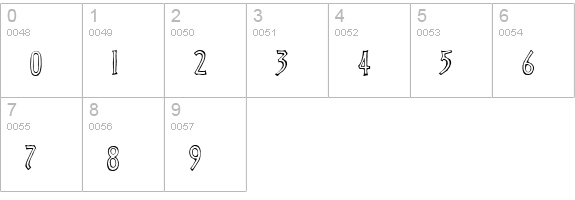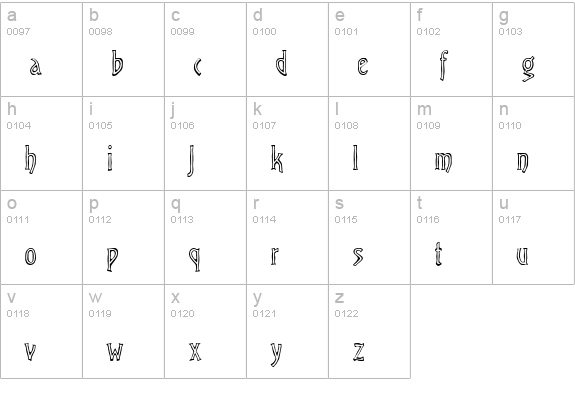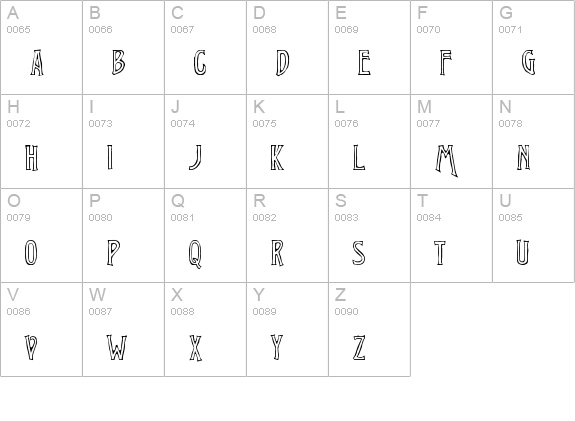
Virile Open is a striking and robust font that exudes confidence and power. With its bold and muscular letterforms, this font is perfect for making a strong statement in your designs. What sets Virile Open apart is not only its strong presence, but also its versatility. It can be used across a wide range of design projects, from logos and headlines to posters and packaging. No matter the application, Virile Open commands attention and leaves a lasting impression. But what makes Virile Open even more appealing is the fact that it is free. Yes, you read that right. This incredible font is freely available to download at FontsMarket.com. Now you can add this impressive typeface to your collection without any cost. Downloading Virile Open is a breeze. Simply visit FontsMarket.com and navigate to the font's page. From there, click on the download button and in just a few seconds, you'll have this powerful font ready to use in your projects. So why wait? Take advantage of this amazing opportunity to enhance your designs with Virile Open. Download it for free at FontsMarket.com and let your creativity soar.